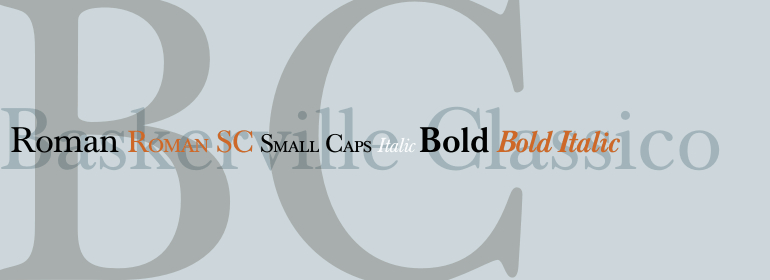
Baskerville Classico™
The ITC New Baskerville font family is based on a design that was first shown by John Baskerville of Birmingham in 1724. It is important historically because it represented a deliberate move away from the Old Style faces of the preceding centuries, and foretold the Moderns that were to follow. ITC New Baskerville imparts an elegant and distinctive look without distracting the reader.